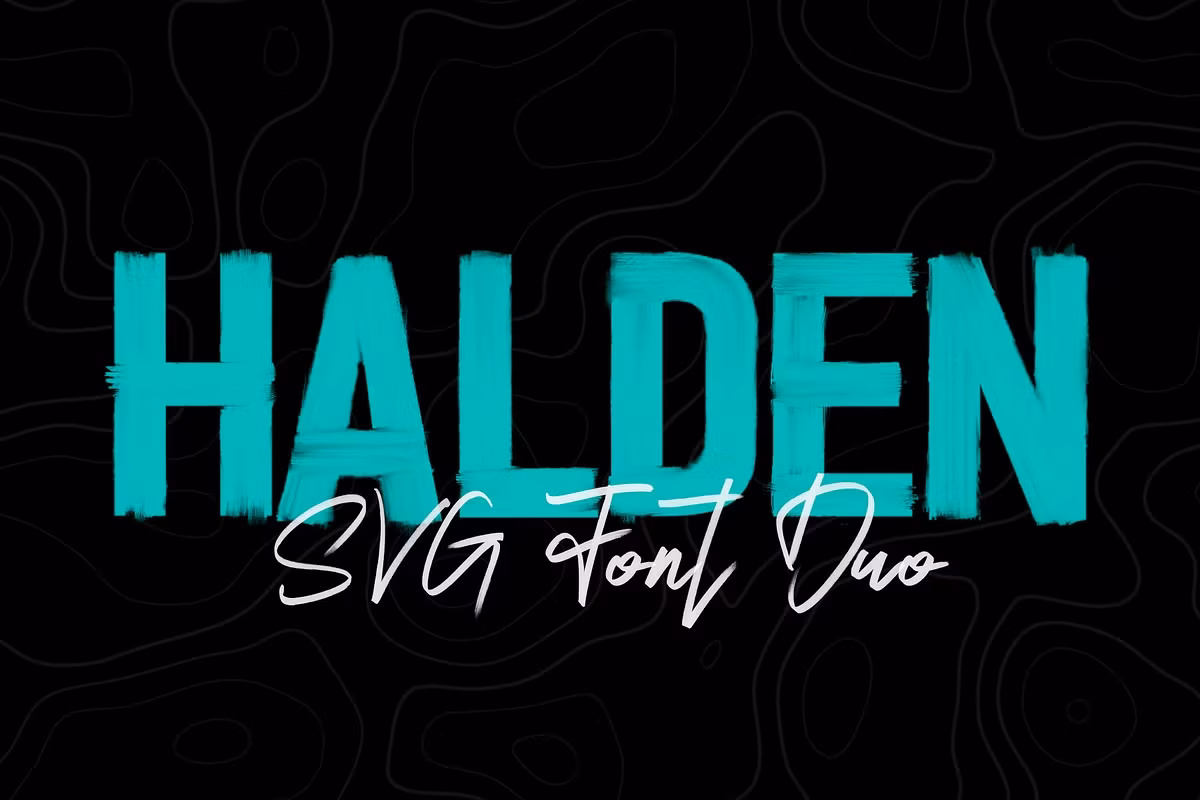
Halden – Hand Brushed SVG Font Duo Free Download is an expressive and creative font duo that combines the natural feel of hand-brushed strokes with a modern, textured design. This font duo includes both a regular script style and an SVG version, giving you the flexibility to choose between a solid or more textured, brush-painted look.
Perfect for branding, social media graphics, posters, and more, Halden – Hand Brushed SVG Font Duo Free Download brings an artistic, personal touch to your projects. The SVG version, with its raw and organic texture, is ideal for designs that need extra personality and visual interest.